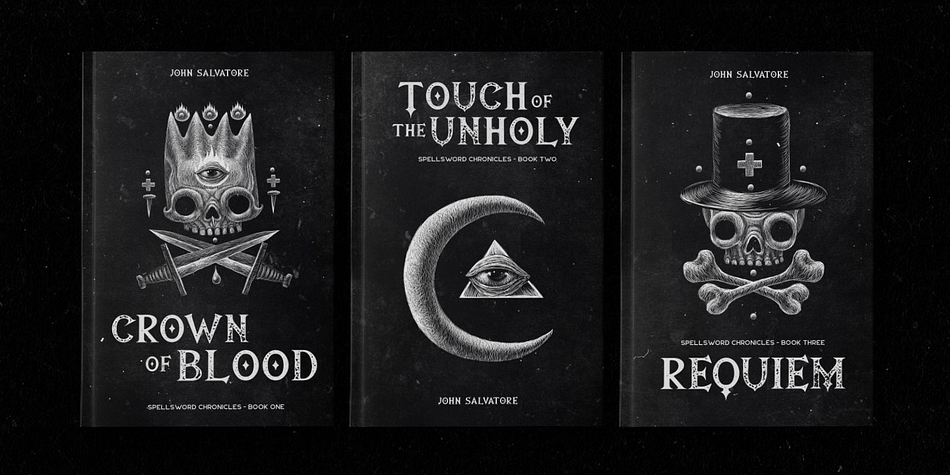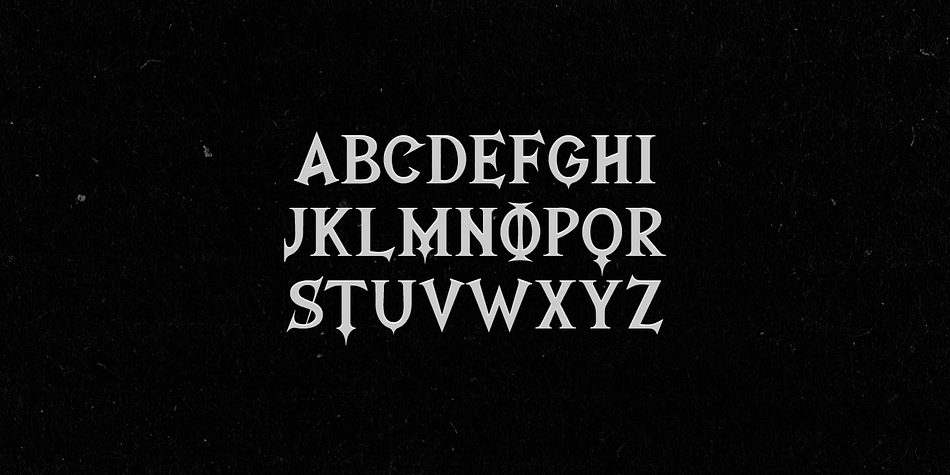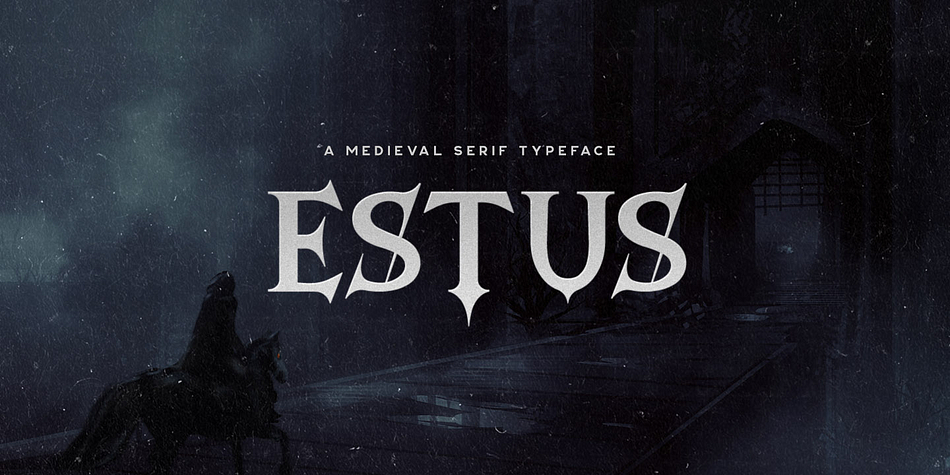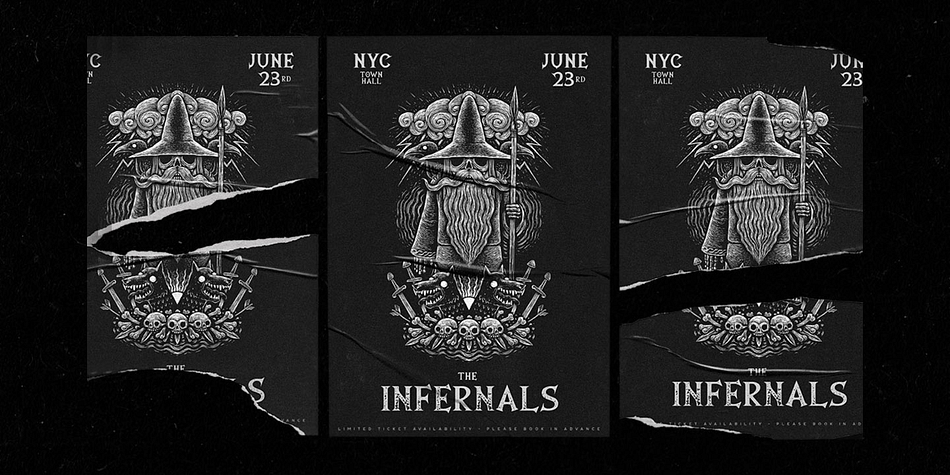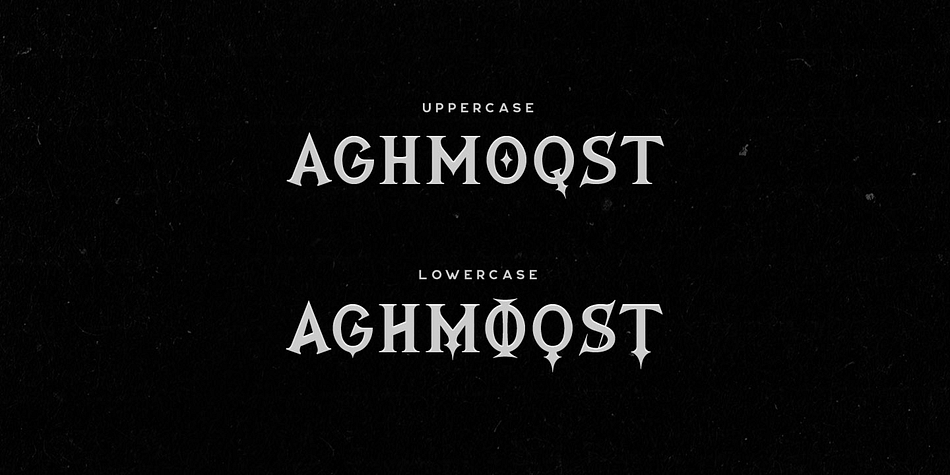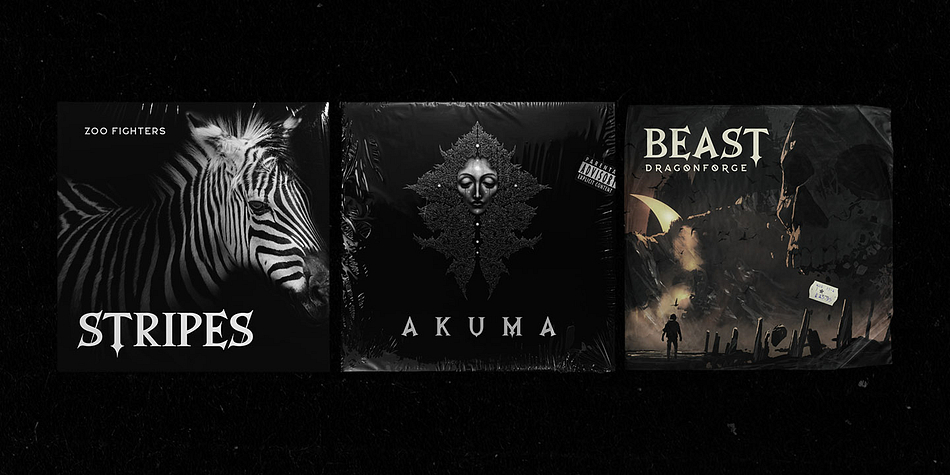
Estus is a display and grunge font family. This typeface has two styles and was published by Tugcu Design Co.
Estus is a sharp medieval serif font with alternate letters that can be toggled via Caps Lock. Comes in two styles.